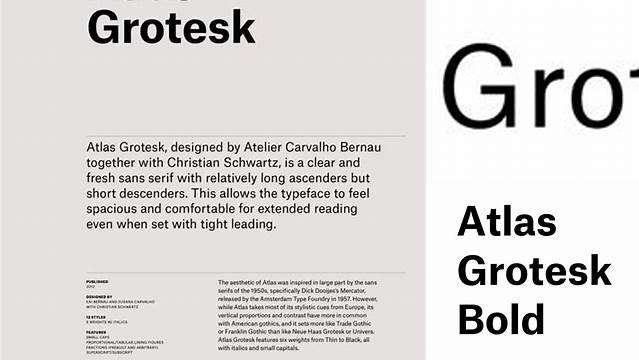
Unveiling The Free Font Atlas Grotesk: A Design Enthusiast's Guide
Hey everyone! Today, we're diving headfirst into the fantastic world of typography, and more specifically, we're taking a deep dive into the Free Font Atlas Grotesk. This isn't just any font; it's a design tool, a statement maker, and a whole lot of fun to play with. This article is your comprehensive guide, packed with everything you need to know, from its origins to how to use it like a pro. So, grab your coffee, settle in, and let's explore this amazing font together.
H2: What Exactly is the Free Font Atlas Grotesk?
Alright, guys, let's start with the basics. The Free Font Atlas Grotesk is, well, a free font! But it's so much more than that. It's a versatile sans-serif typeface that's clean, modern, and incredibly readable. Think of it as the Swiss Army knife of fonts. You can use it for headlines, body text, in web design, print projects, and pretty much anything you can imagine. Its clean lines and simple forms make it incredibly adaptable, meaning it will look great no matter where you use it. One of the best things about the Free Font Atlas Grotesk is that it's designed to be accessible. As the name suggests, it is free, which is perfect for anyone, especially students, and indie designers. It gives you the chance to experiment and create without the worry of hefty licensing fees.
This font offers a variety of weights, from light and airy to bold and impactful. This range of weights gives you so many creative options. Do you want something subtle for a paragraph? You got it. Need a strong, attention-grabbing headline? Free Font Atlas Grotesk has you covered. The design is influenced by the classic grotesque fonts but with a contemporary twist. The letters are designed with a focus on legibility. They are designed to be easily read on screens and in print. This makes it an ideal choice for digital interfaces, websites, and any other medium where clarity is essential. Its geometric forms provide a sense of balance and harmony, allowing your designs to maintain a cohesive and visually pleasing look. In a world where font licensing can be a barrier, the Free Font Atlas Grotesk stands out as a beacon of open-source design. This gives you the freedom to create, experiment, and push the boundaries of your designs. So, if you're looking for a reliable, versatile, and free font, look no further. The Free Font Atlas Grotesk is your new best friend.
H2: The History and Origins of Grotesk Fonts: The Foundation of Free Font Atlas Grotesk
Let's rewind the clock a bit and talk about the history of the fonts that inspire the Free Font Atlas Grotesk. The roots of the grotesque style go way back, all the way to the 19th century, right in the heart of the Industrial Revolution. Back then, type designers started to create fonts that were simpler and more utilitarian than the ornate typefaces that were popular at the time. These new fonts were born out of a need for clear communication and were designed to be used in advertising, posters, and other commercial applications. These fonts are known for their clean, functional designs. They typically don't have serifs (those little decorative strokes at the ends of letters). They have a minimalist aesthetic, making them ideal for modern design.
As the 20th century dawned, the grotesque style evolved and spread throughout the world of design. Designers experimented with different weights, widths, and styles, giving rise to many variations. This period saw the rise of iconic grotesque fonts that are still widely used today, such as Helvetica and Arial. These fonts became a staple for a wide range of design projects. From the simple forms of advertisements to the complex layouts of magazines, grotesque fonts proved their versatility and staying power.
Today, the legacy of these fonts lives on in the design of the Free Font Atlas Grotesk and its various contemporaries. This font embodies the principles of simplicity, clarity, and functionality. It continues to be an amazing choice for designers of all levels. From its industrial roots to its modern adaptations, the story of grotesque fonts is a fascinating journey through design history. By using the Free Font Atlas Grotesk, you're joining a long tradition of designers who value clarity, readability, and a modern aesthetic. It's a design choice that speaks of an understanding and appreciation of design history and an eye for contemporary trends.
H2: Key Features and Characteristics of the Free Font Atlas Grotesk
Alright, let's get into the nitty-gritty and talk about the specific features that make the Free Font Atlas Grotesk stand out. First of all, its versatility is a massive selling point. With a range of weights from light to extra bold, this font can handle anything from subtle body text to punchy headlines. The range gives you a lot of options when creating a design. You can easily adjust the emphasis and visual hierarchy of your designs. The Free Font Atlas Grotesk has a clean, sans-serif design, so it fits perfectly with many design styles. The clean design of Free Font Atlas Grotesk ensures that your message is conveyed clearly and efficiently. Its geometric letterforms give a modern, balanced feel.
Readability is key. The design prioritizes legibility, which makes it ideal for digital and print projects. The spacing and letterforms are designed to make reading easy on the eyes, even at smaller sizes or on screens. It is also designed to offer a variety of styling options. The font includes different styles, such as italics and small caps. This gives you many ways to customize the design and make it unique. Because it's free, you can use it for both personal and commercial projects without worrying about licenses. This opens up a world of creative possibilities. The Free Font Atlas Grotesk also features good kerning, meaning the space between letters is optimized. This makes the text even more readable and visually appealing. The subtle details, the consistency of the design, and the overall quality of the design show the font's strength. This font is a reliable, high-quality font for any design project. Choosing the Free Font Atlas Grotesk means you're not just choosing a font; you're choosing a design tool that prioritizes clarity, versatility, and visual appeal.